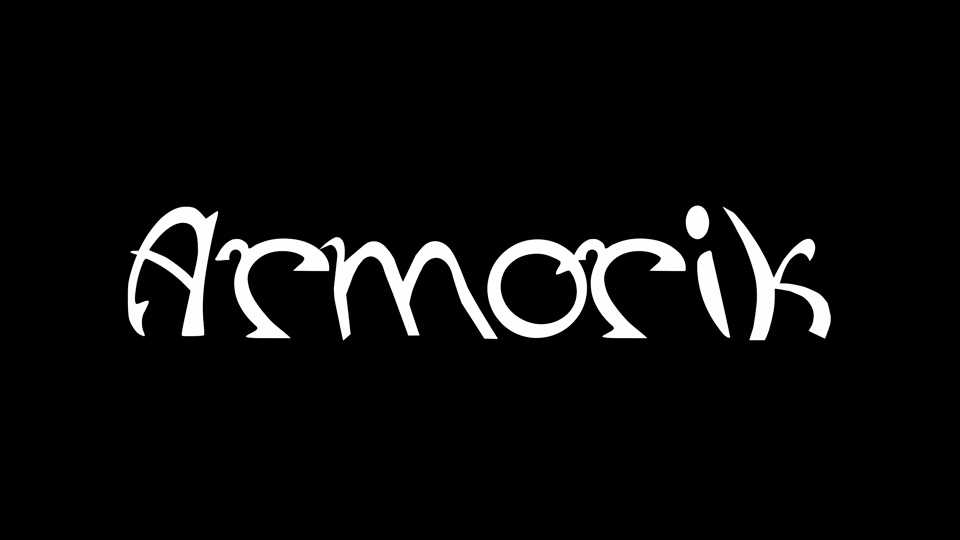
Download Armorik font, a contemporary display typeface with free style letterforms. With its unique look, Armorik font is great choice for posters, album artworks and typography compositions.
Designer: Dominique Lemarchand